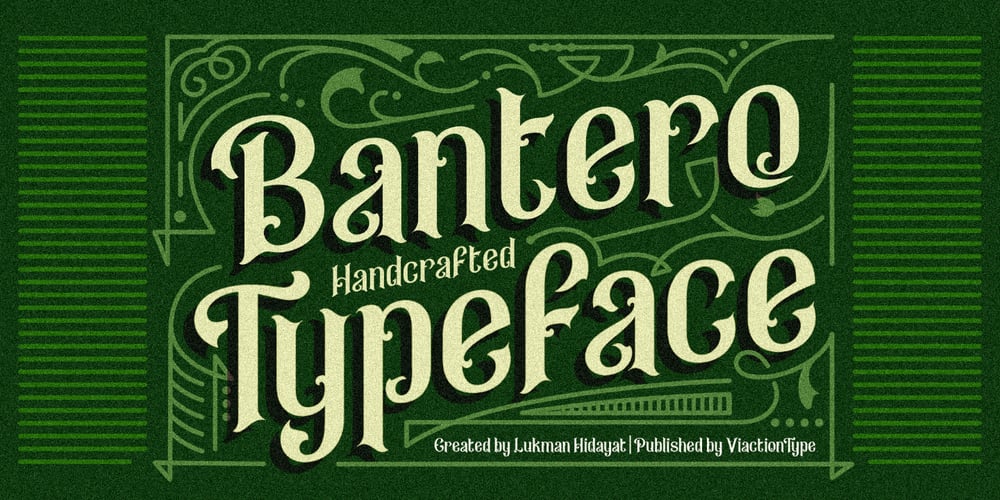
Bantero Font Family was designed by Lukman Hidayat and published by Viaction Type.Co. Bantero contains 1 styles and family package options. Bantero Typeface is a display font with a vintage theme and a victorian style. It’s perfect for vintage-themed projects. The font pack includes a bonus of 6 vintage ornaments which are very easy to edit. Font features include: Bantero File Multilingual Support. Punctuation & Symbol. Get this cool & interesting font collection right away at an affordable price.